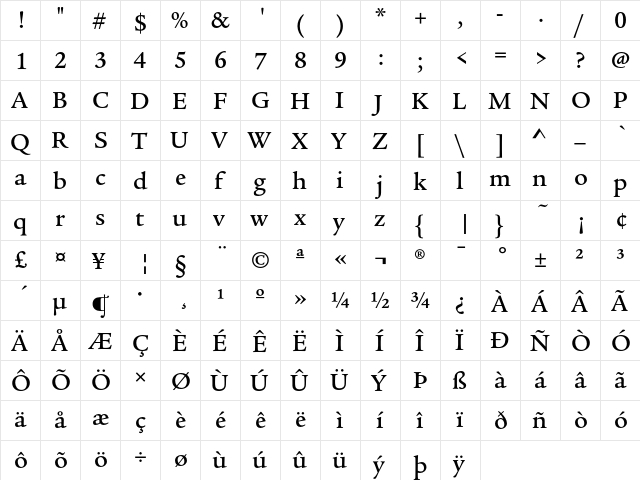
LegacySerifEF Medium Font Preview
LegacySerifEF Medium
LegacySerifEF Medium Font Details
Design Context for LegacySerifEF Typeface
LegacySerifEF brings classic typographic sensibility to the table — its serifs and measured letterforms reflect centuries of print heritage.
Pro Tip: Use LegacySerifEF for editorial body copy and considered headline work. Pair with a neutral sans for UI elements or captions to create a classic hierarchy.